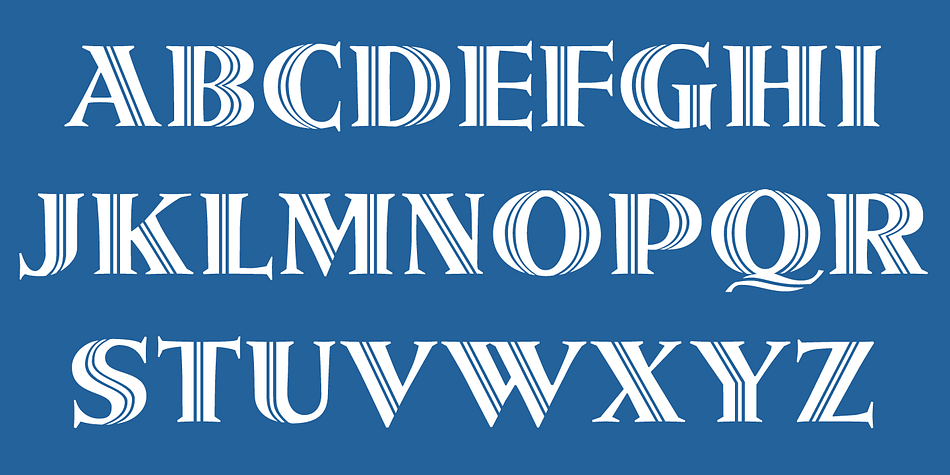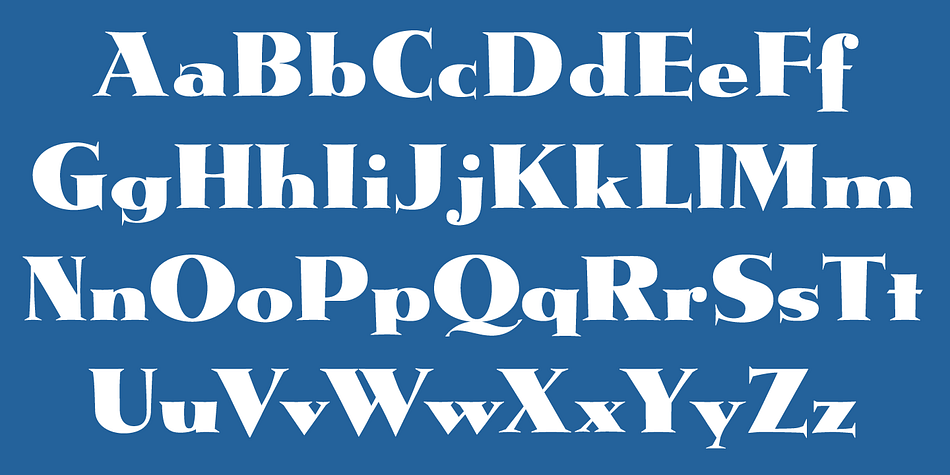
Metropolis CT is a display serif font family. This typeface has two styles and was published by CastleType.
Metropolis CT Bold was commissioned by Publish magazine for their 1990 redesign. Now bundled with Metropolis CT Shaded. Metropolis CT is based on the 1932 Stempel cut as designed by W. Schwerdtner.